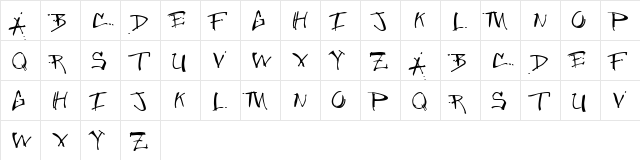
Jungle Clean Free Font
Jungle Clean
Style: Clean
Jungle Family
Jungle Clean
Design Context for Jungle
Jungle is a composed and adaptable typeface that performs quietly and consistently across a wide range of design contexts.